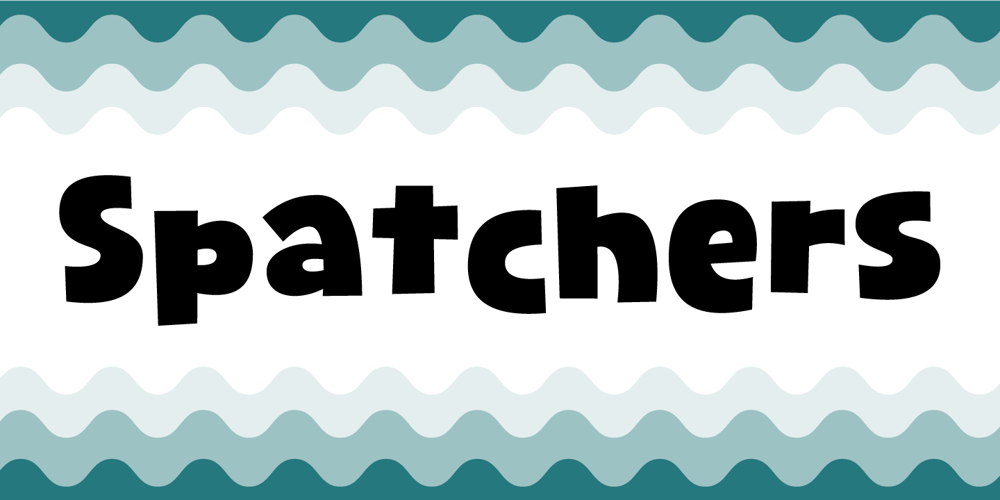
Spatchers
Spatchers font
Spatchers Font Family was designed by Jakob Fischer and published by PizzaDude.dk. Spatchers contains 2 styles and family package options. Spatchers is obviously a comic font – very useful when you need a fresh and legible look to whatever you design. I’ve made 4 slightly different versions of each lowercase letter – and they automatically cycle as you type.